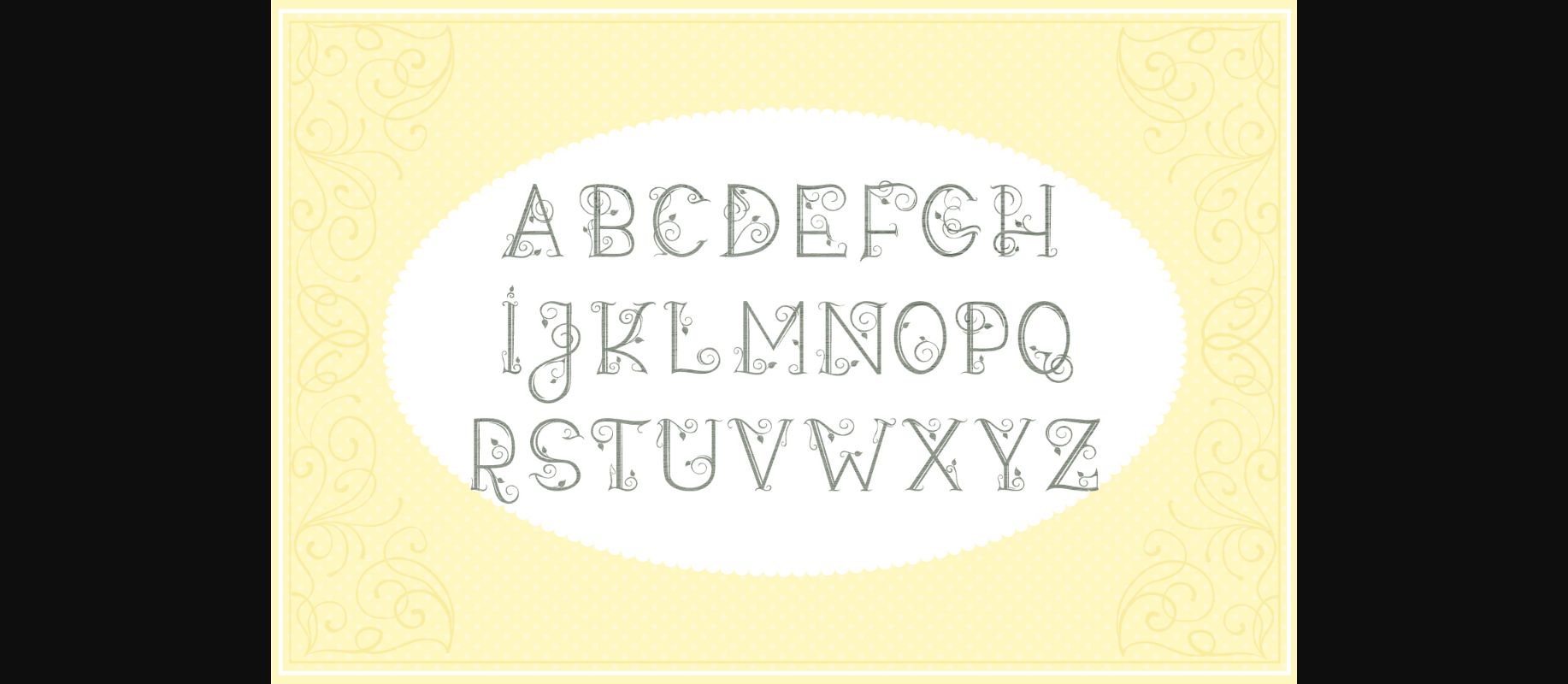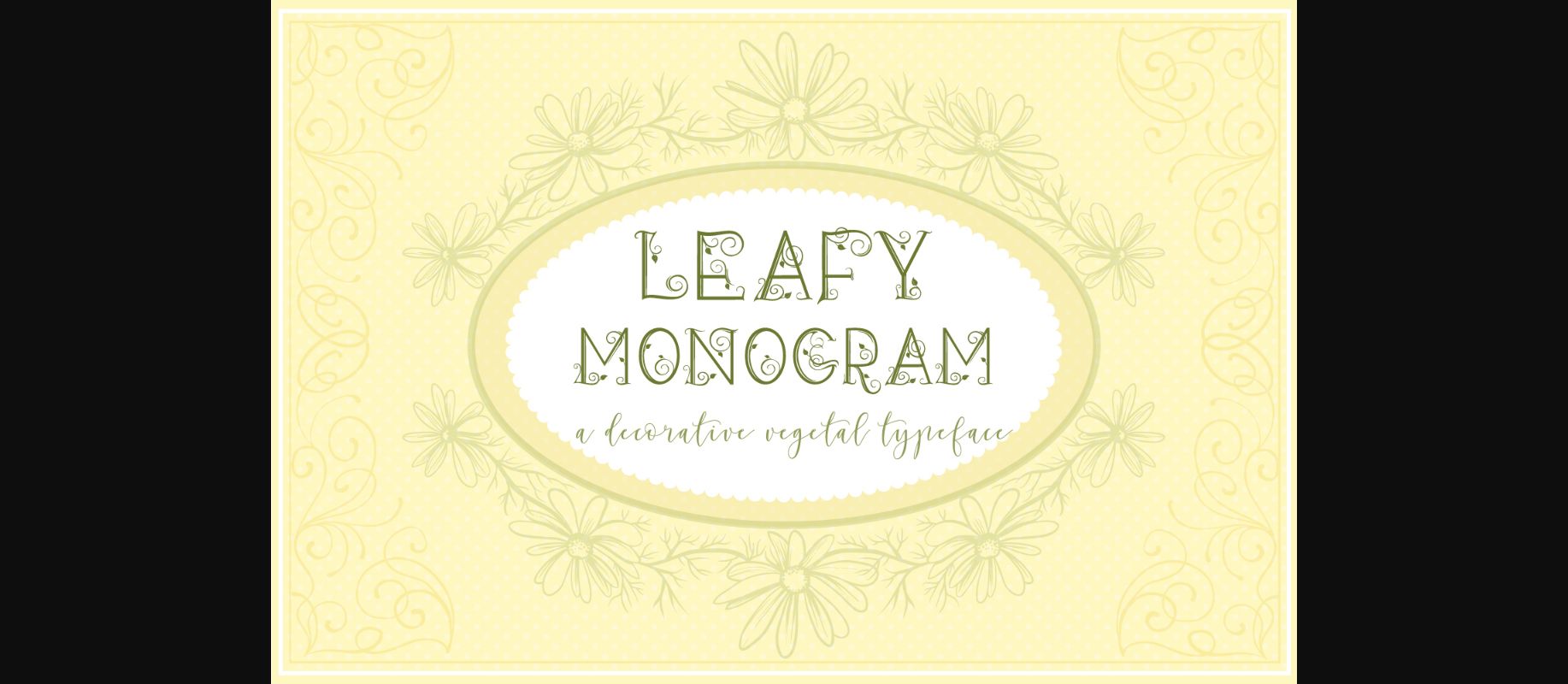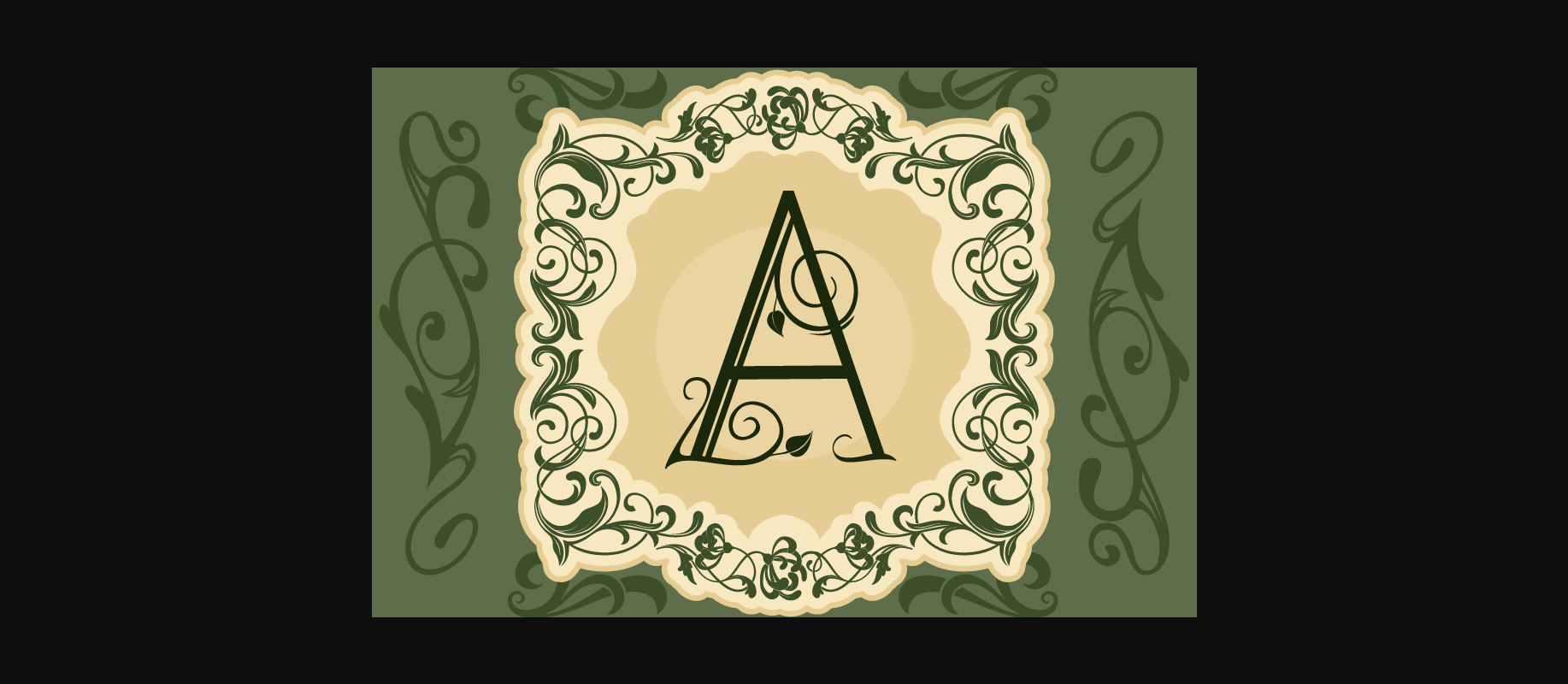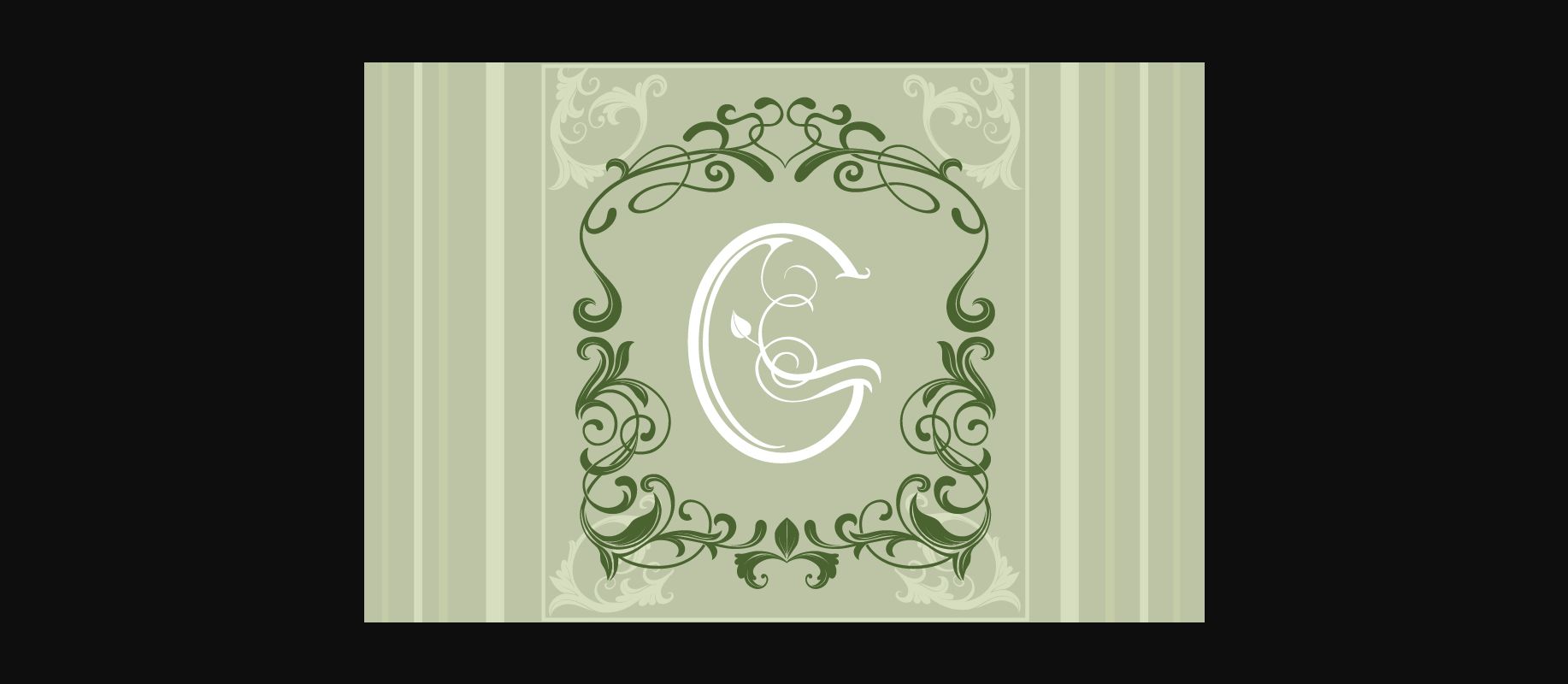
Leafy Monogram Font
About Leafy Monogram Font
Leafy Monogram is an all caps decorative font, perfect for any nature-themed design project. Each letter is carefully hand-drawn and features vintage swirls and botanical elements!